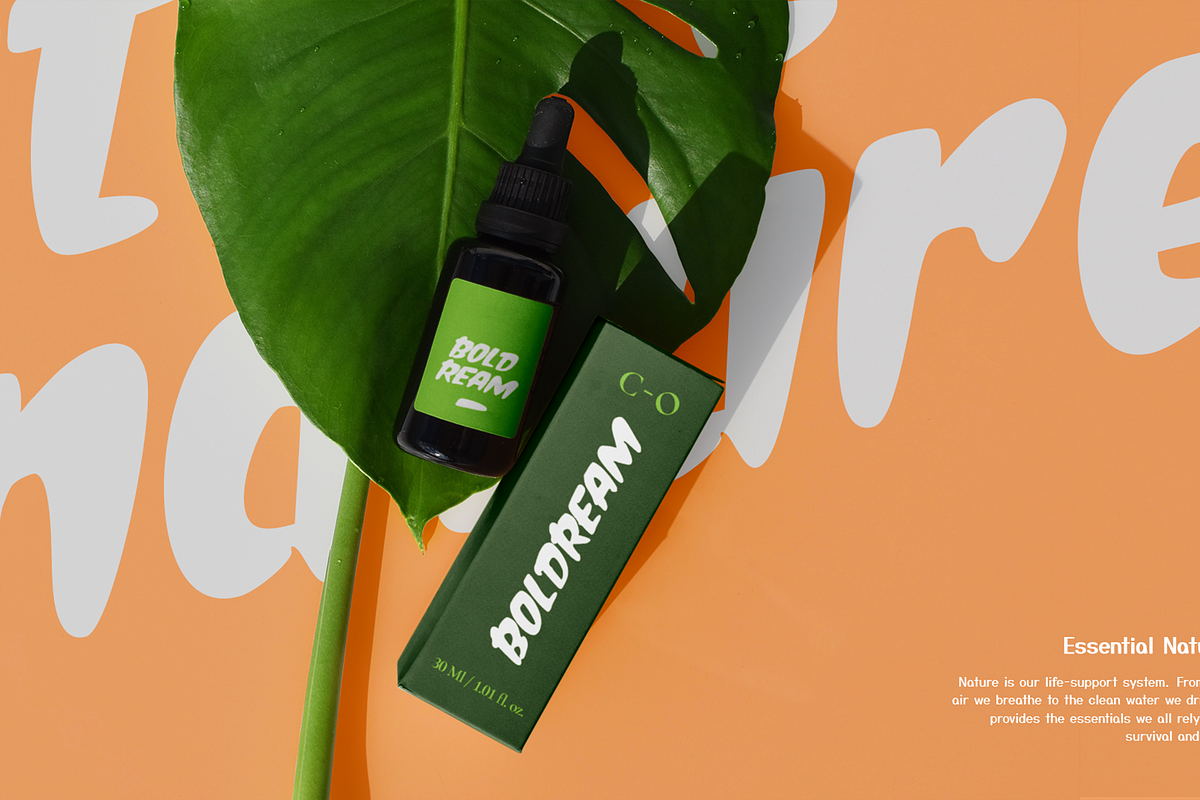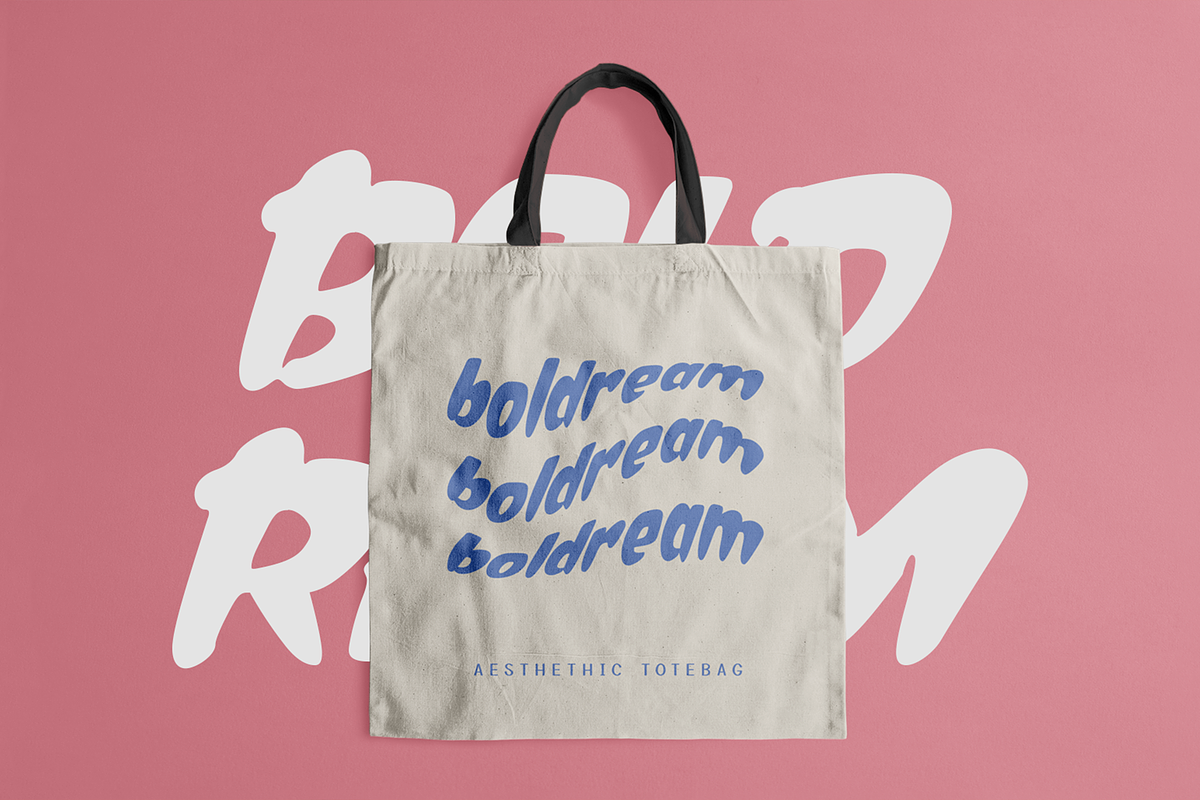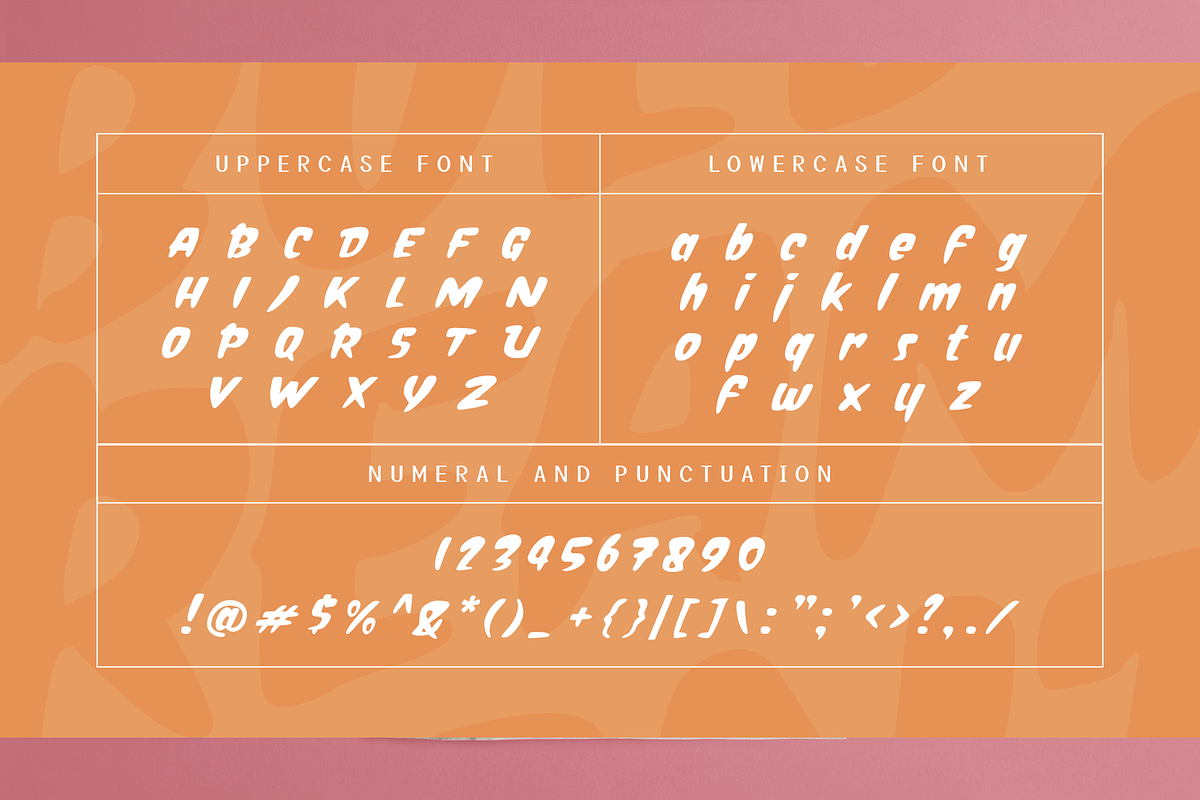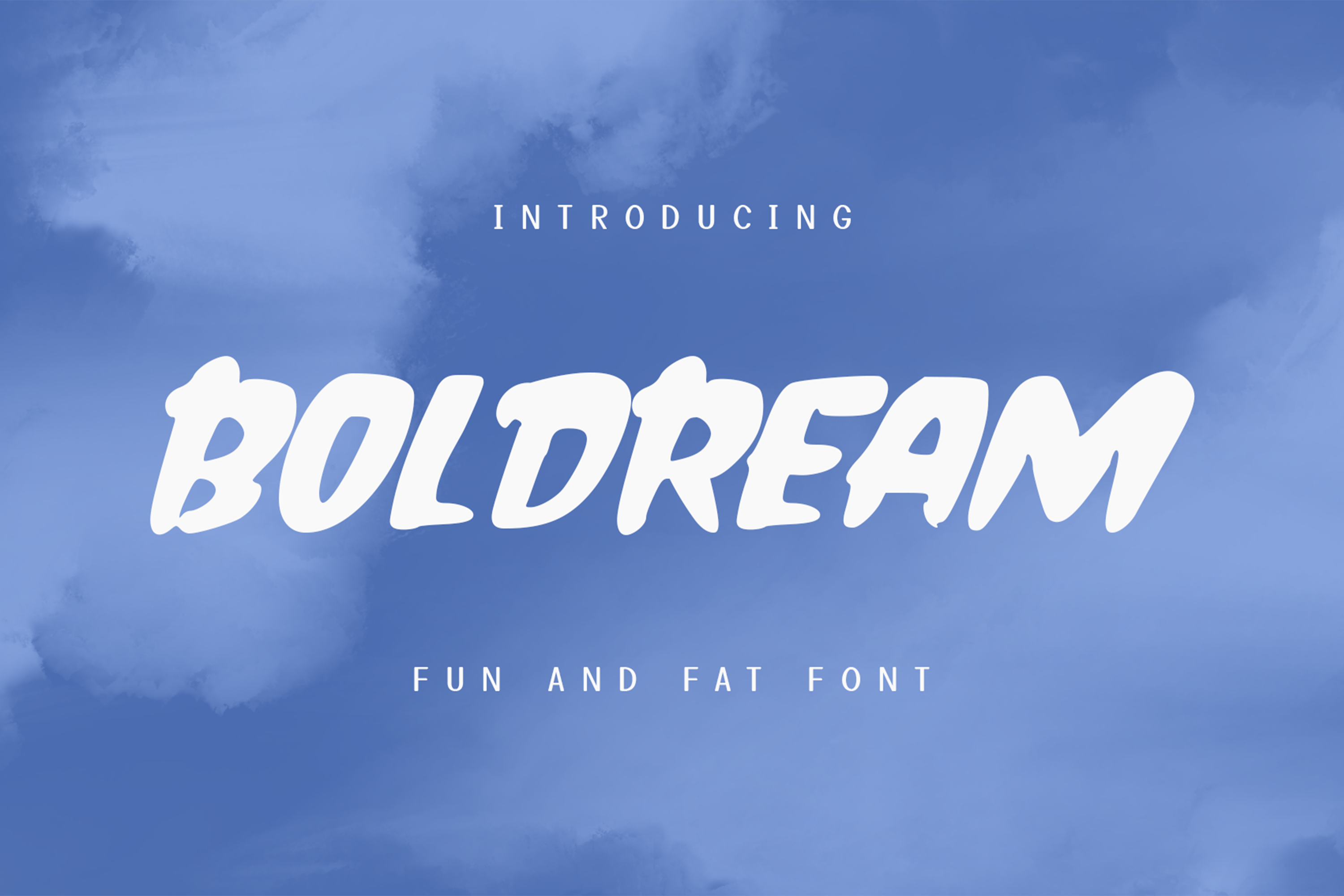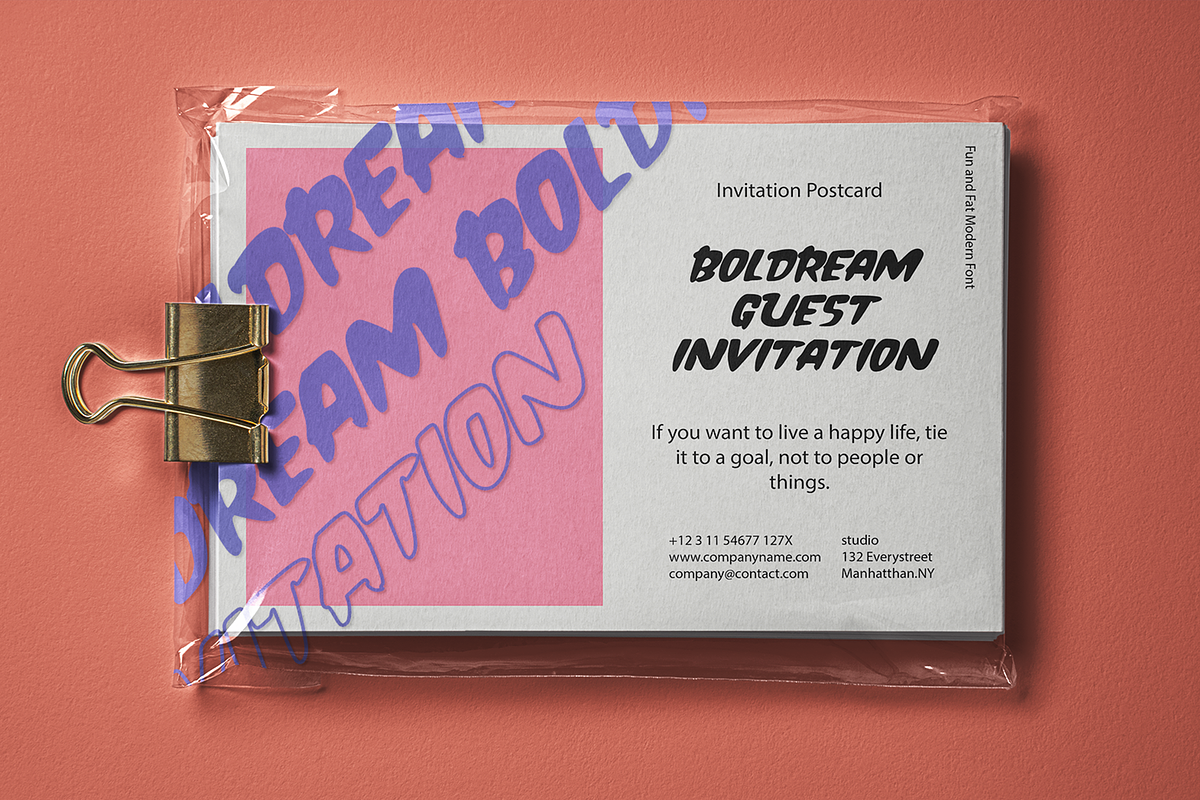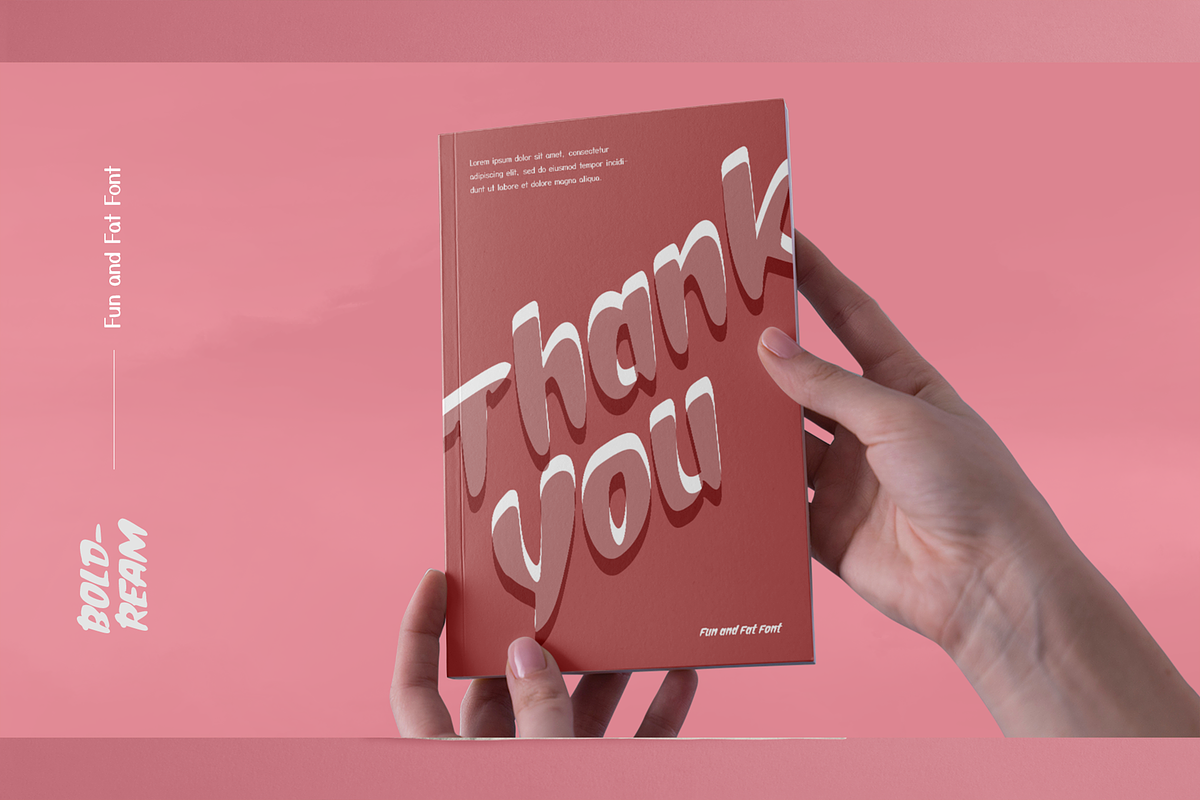
Boldream Fun and Fat Display Font
Boldream Fun Display Font, is our new font and suitable for mockup or any work.
Great for Sticker, Invitation Card, Brochure, etc.